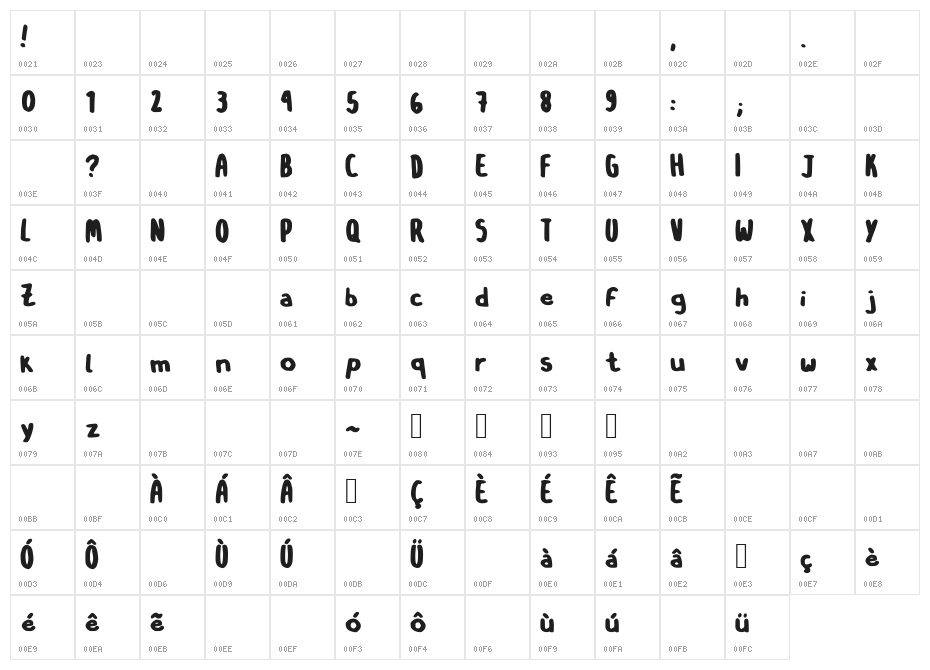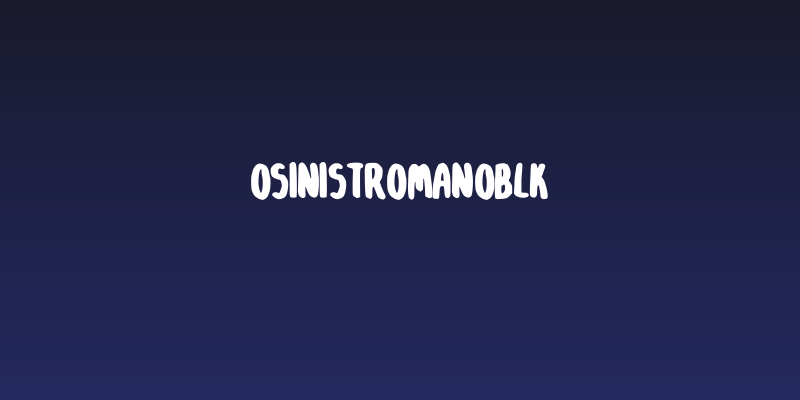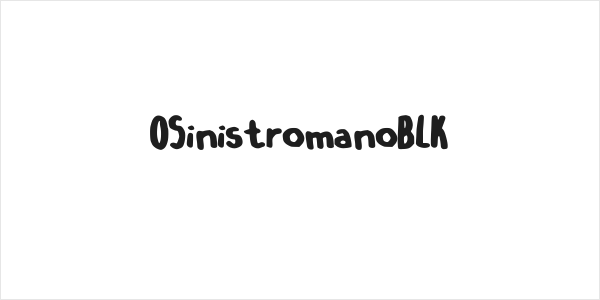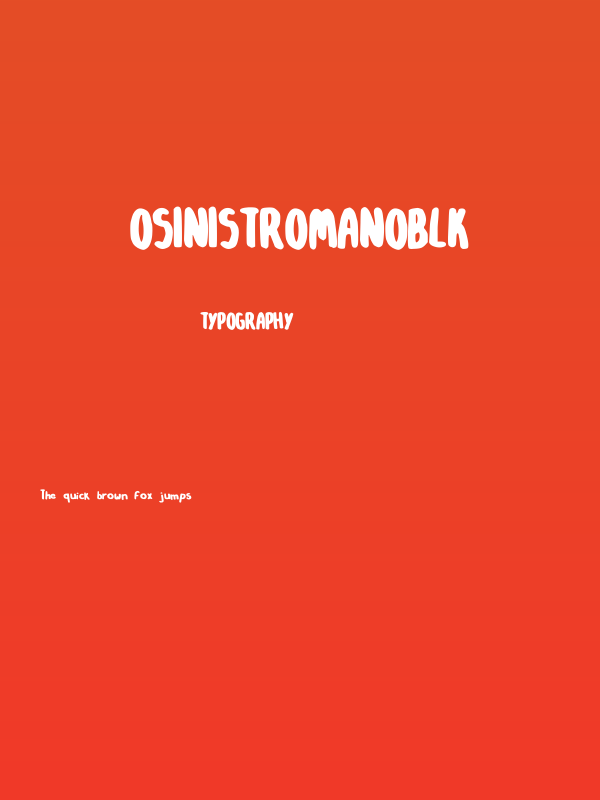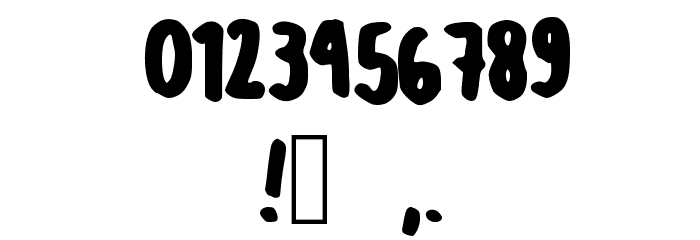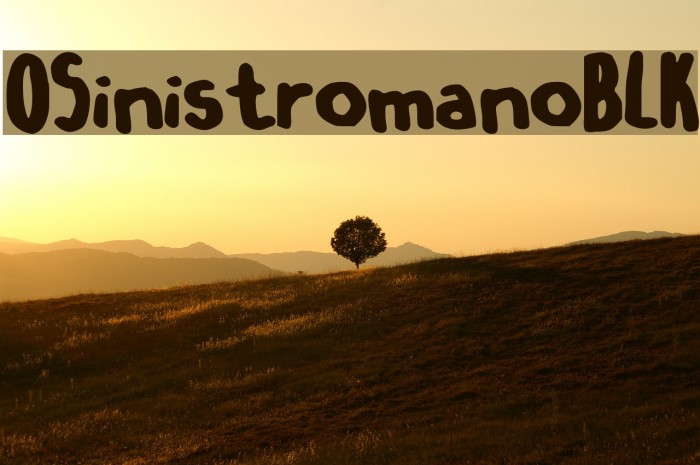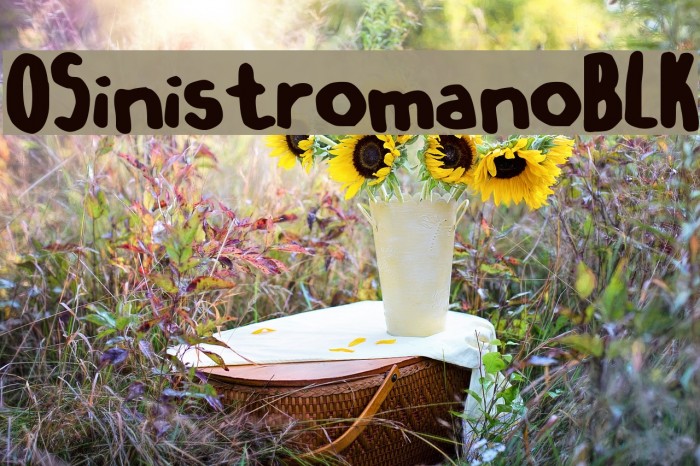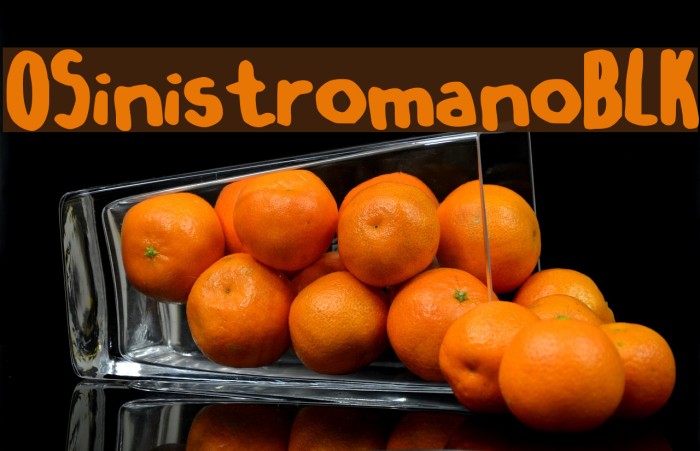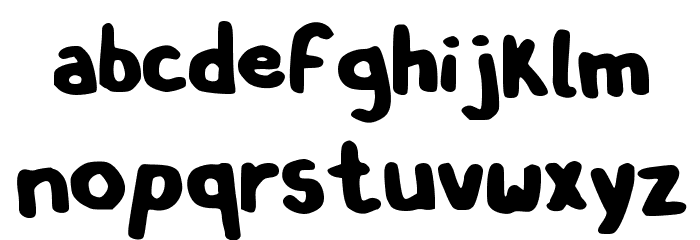
OSinistromanoBLK Font
OSinistromanoBLK Description
This font features a playful and bold style with rounded edges and a hand-drawn appearance. The letters are thick and slightly irregular, giving it a casual and friendly feel. The uppercase and lowercase characters maintain a consistent weight, while the numbers and special characters complement the overall design. The font's informal and approachable nature makes it suitable for creative projects that require a touch of whimsy and personality.
| Proposed Projects | Ideal for children's books, posters, greeting cards, and playful branding. |